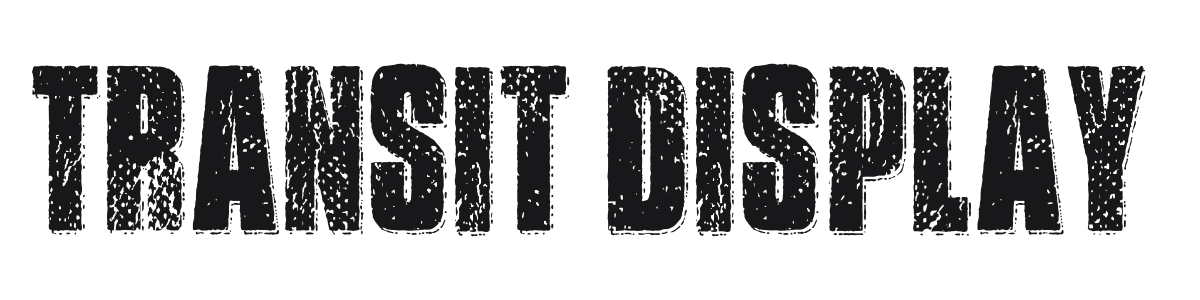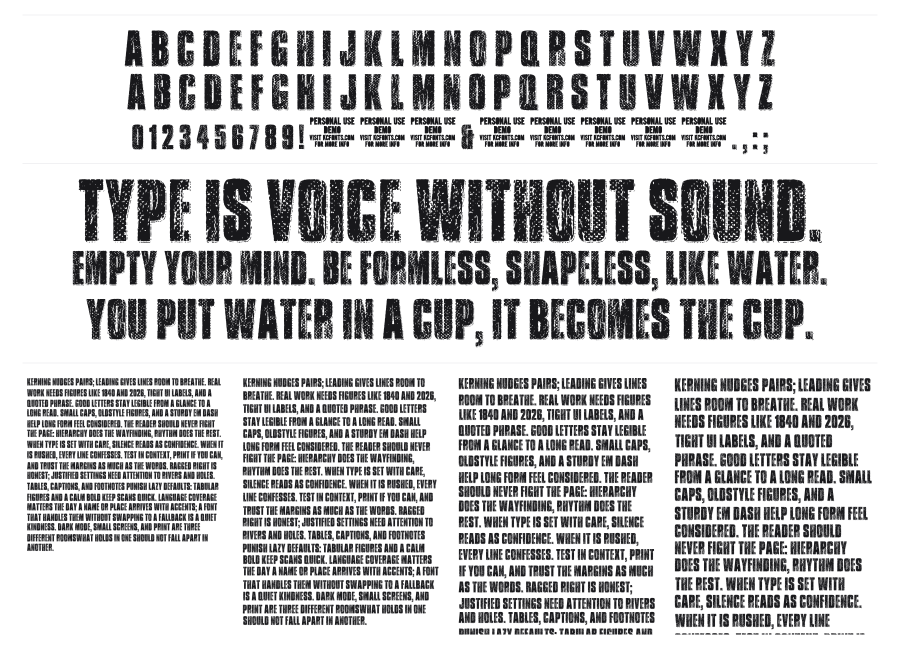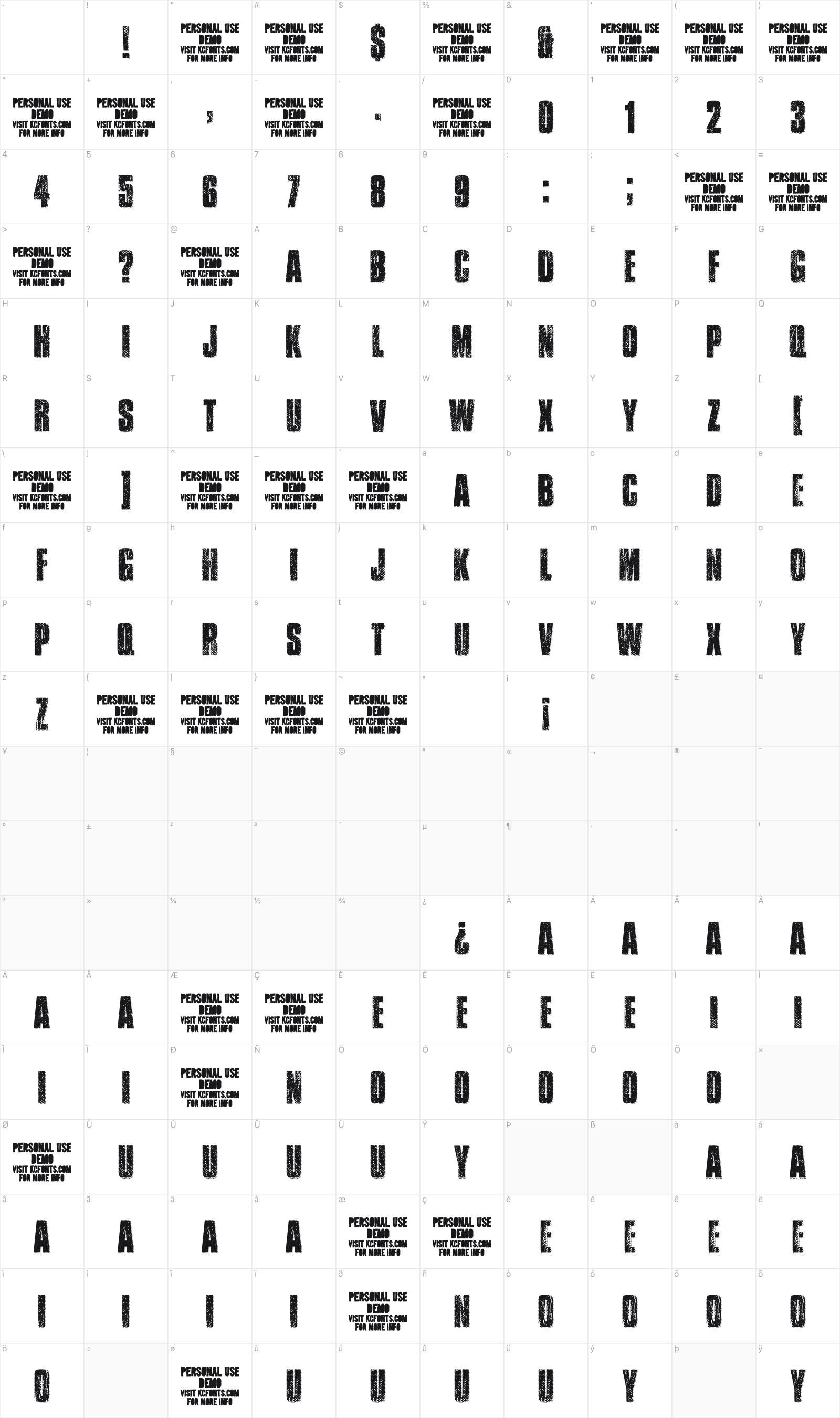
Transit Display
Transit Display is a heavy condensed sans-serif layered with a heavy distressed texture that reads like worn transit signage or weathered screen print. The erosion is dense and consistent, giving every character a gritty, industrial weight. It works at large sizes where the texture becomes a feature rather than noise.